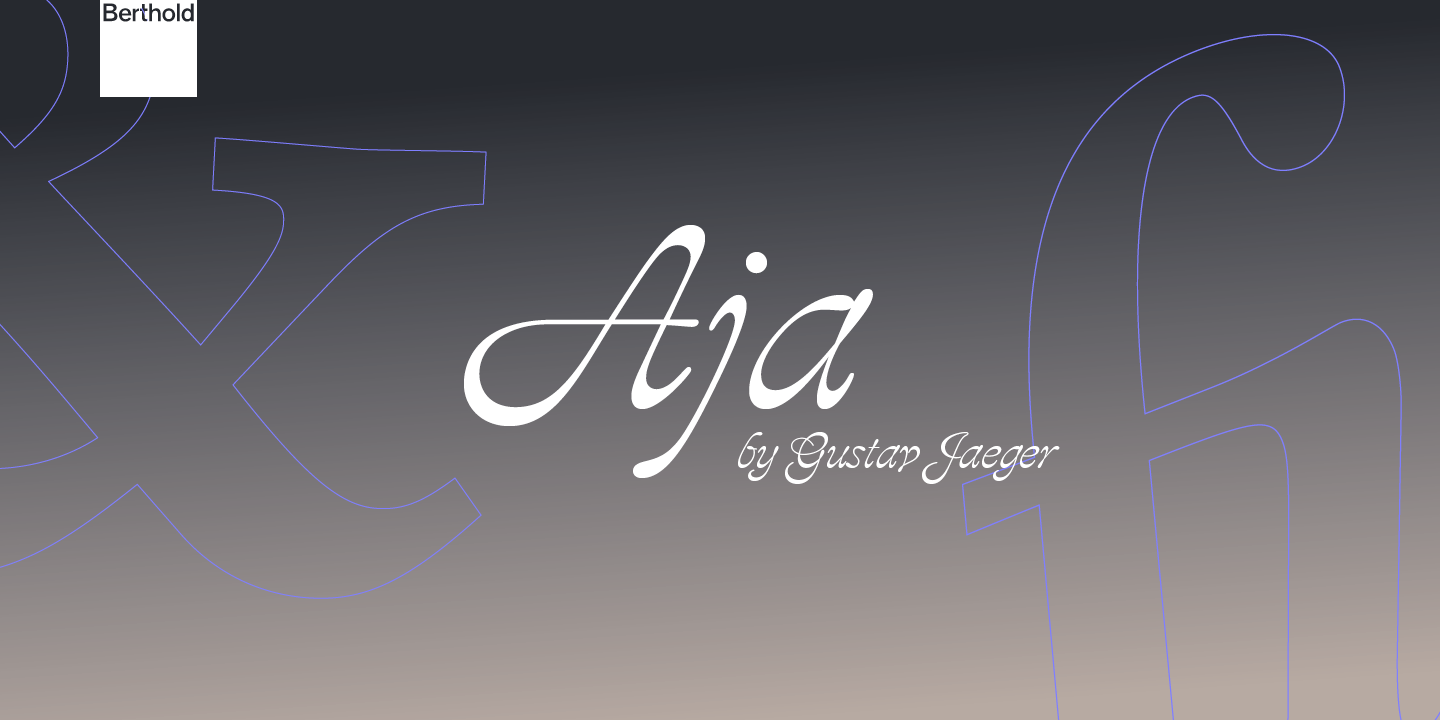
Aja Font is perfect for modern minimalist branding, contemporary design studios, sleek tech startup logos, clean architectural presentations, sophisticated wellness centers, elegant lifestyle brands, refined fashion labels, modern art gallery displays, contemporary museum signage, and sophisticated brand identities that require effortless elegance and contemporary sophistication.
This font is exciting because it embodies pure elegance and effortless sophistication with clean, flowing letterforms that seem to glide across the page with natural grace and contemporary style, creating an instantly recognizable aesthetic of refined simplicity. Aja Font features harmonious proportions and elegant character details that reflect the perfect balance between modern minimalism and timeless sophistication essential for contemporary luxury branding.
Aja Font family includes Regular, Bold, Light, Elegant, Modern, Refined, Contemporary, and Sophisticated versions, plus elegant symbols, modern ornaments, refined flourishes, and sophisticated design elements that enhance the contemporary aesthetic and provide comprehensive solutions for luxury and lifestyle applications.
For elegant contemporary and luxury design projects, Aja Font Free Download delivers unmatched sophistication and modern appeal. The font's graceful letterforms and elegant character make it perfect for luxury brands, contemporary businesses, and sophisticated services seeking to communicate refinement, quality, and modern elegance. Its effortless design appeals to discerning audiences who appreciate understated luxury and contemporary sophistication. The character set includes elegant alternates and refined variations that enhance the luxury brand experience. Professional designers appreciate its ability to convey both contemporary style and timeless elegance while maintaining excellent readability across luxury marketing, sophisticated branding, and contemporary communications, making it essential for brands that want to project the effortless sophistication and elegant refinement that defines exceptional contemporary luxury and creates lasting impressions of quality and style in today's competitive luxury marketplace.